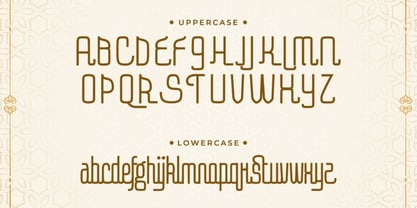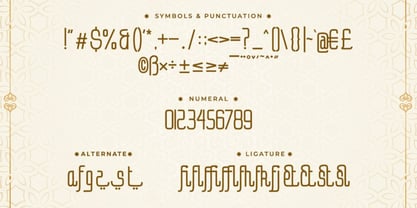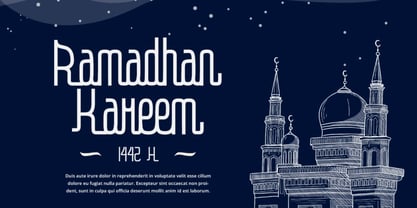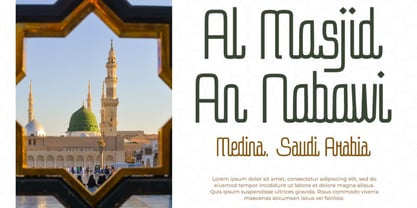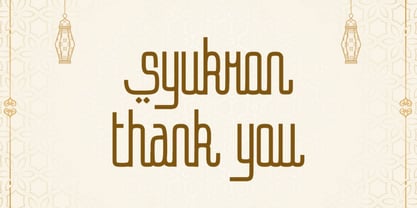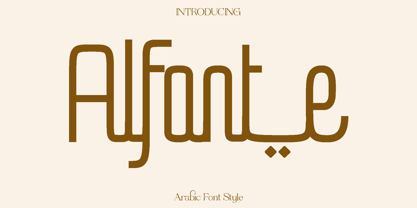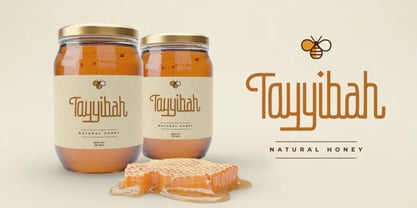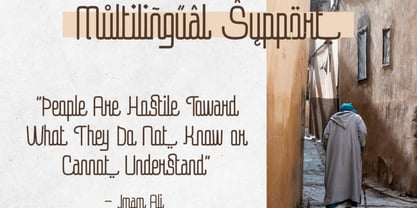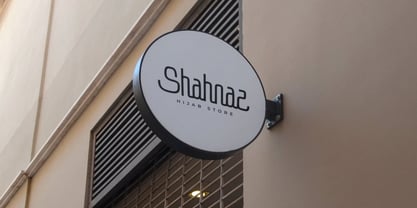
Alfonte
The Alfonte Font Family was designed by Olivia Love and published by Only Fonts. Alfonte contains 1 styles. More about this family
Alfonte – Modern Arabian Display Font Alfonte is a modern display font inspired by the visual rhythm and ornamental beauty often associated with Arabian aesthetics. Created to provide designers with an accessible way to evoke an elegant cultural atmosphere, Alfonte seamlessly blends contemporary letter construction with stylistic cues that hint at traditional forms. The result is a typeface that feels expressive, warm, and distinctive while remaining highly readable for global audiences. Designed with balance and clarity in mind, Alfonte works beautifully for both bold titles and short passages of text. Its carefully shaped characters create a smooth visual flow, making it ideal for creative headings, website hero sections, branding, posters, packaging, and editorial layouts. The font carries a subtle spiritual and decorative tone that can bring depth and personality to projects aiming for a refined or atmospheric look. Alfonte shines in designs that seek a blend of modern style and cultural inspiration. Whether used for event graphics, lifestyle branding, or thematic visuals, it adds a memorable character that helps your message stand out while maintaining elegance and readability. Alfonte Font Features: • Uppercase and lowercase characters • Ligatures and alternate characters • Numerals, symbols, and punctuation • Multilingual support